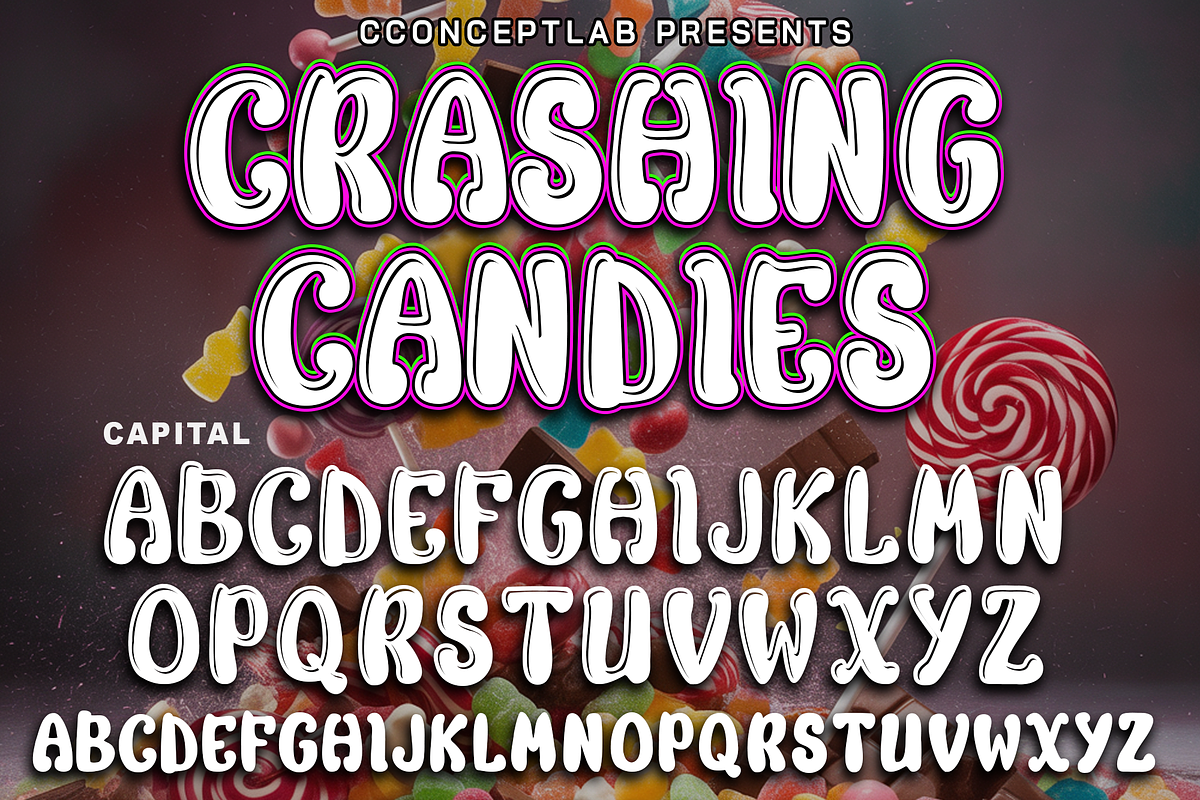
CRASHING CANDIES
Introducing
CRASHING CANDIES
- Groovy children inspired font perfect on your projects, covers, publishing etc.
- Lifestyle comic artsy theme font for branding, website, mobile app etc.